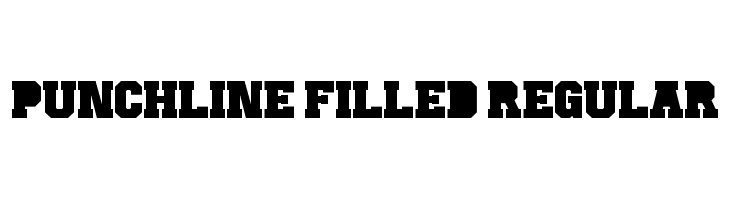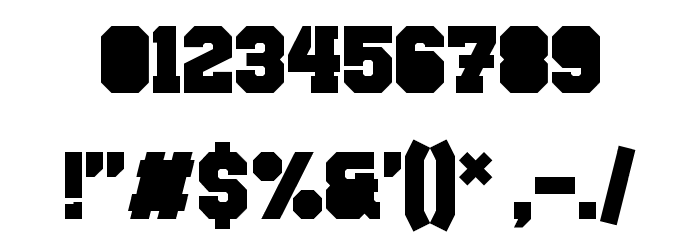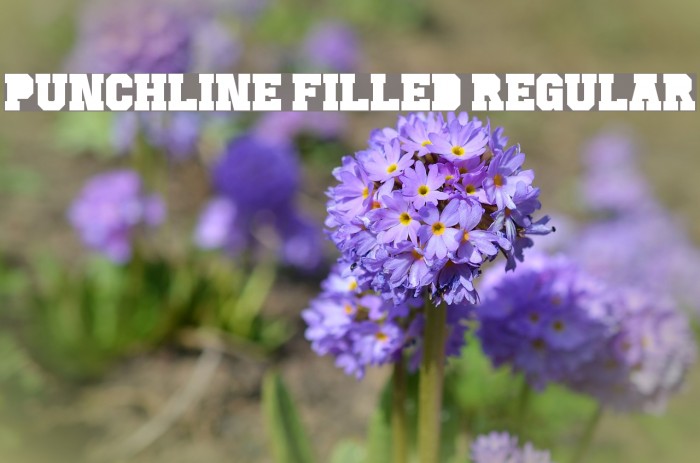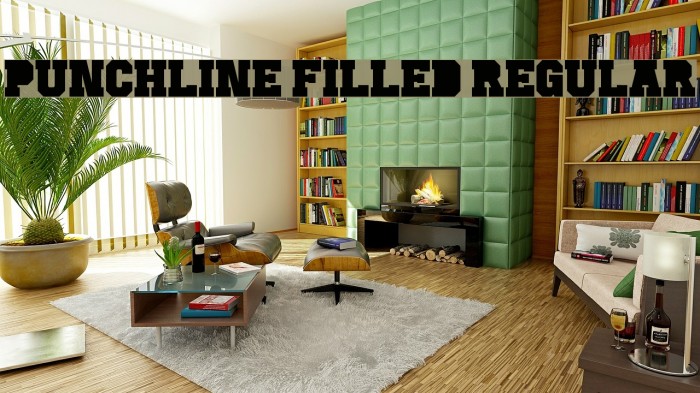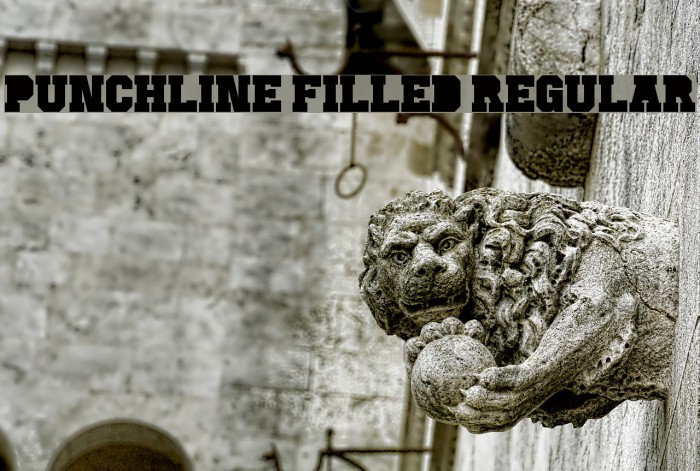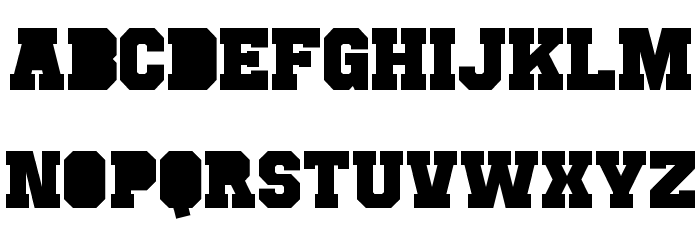
Punchline Filled Regular Font
Punchline Filled Regular Description
This font features a bold and impactful design, characterized by thick, blocky letters with sharp edges and a strong presence. The uppercase letters are uniform in height, creating a cohesive and structured appearance. The numbers and special characters maintain the same boldness, ensuring consistency across all elements. The font's style is reminiscent of vintage poster typography, making it ideal for attention-grabbing headlines and designs that require a strong visual impact. Its robust and solid form conveys a sense of strength and reliability.
A bold, blocky font with a vintage poster style, perfect for impactful headlines from Uncategorized fonts.
- Proposed Projects: Ideal for posters, banners, logos, and any design requiring a bold statement.
- Overall Style: Vintage